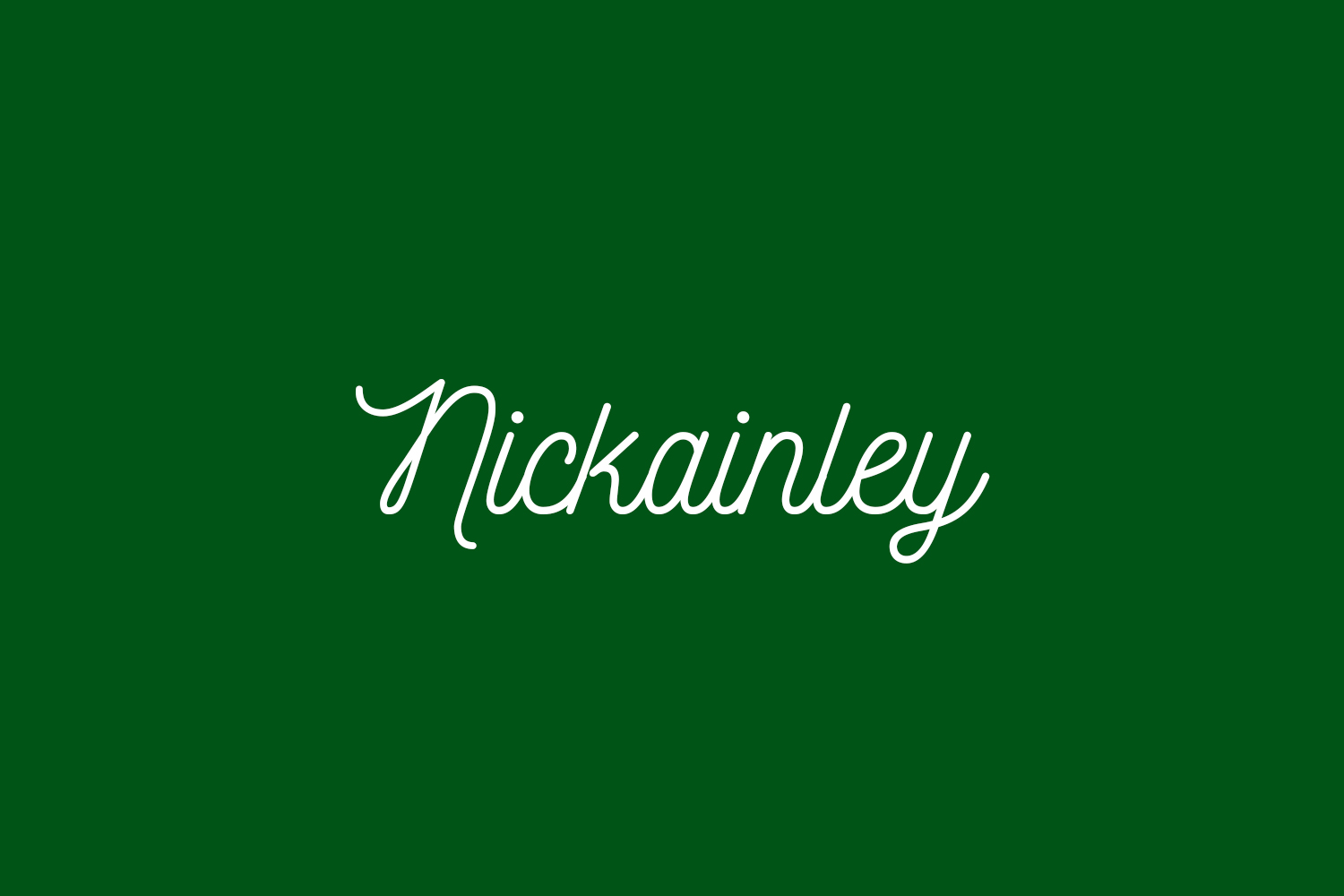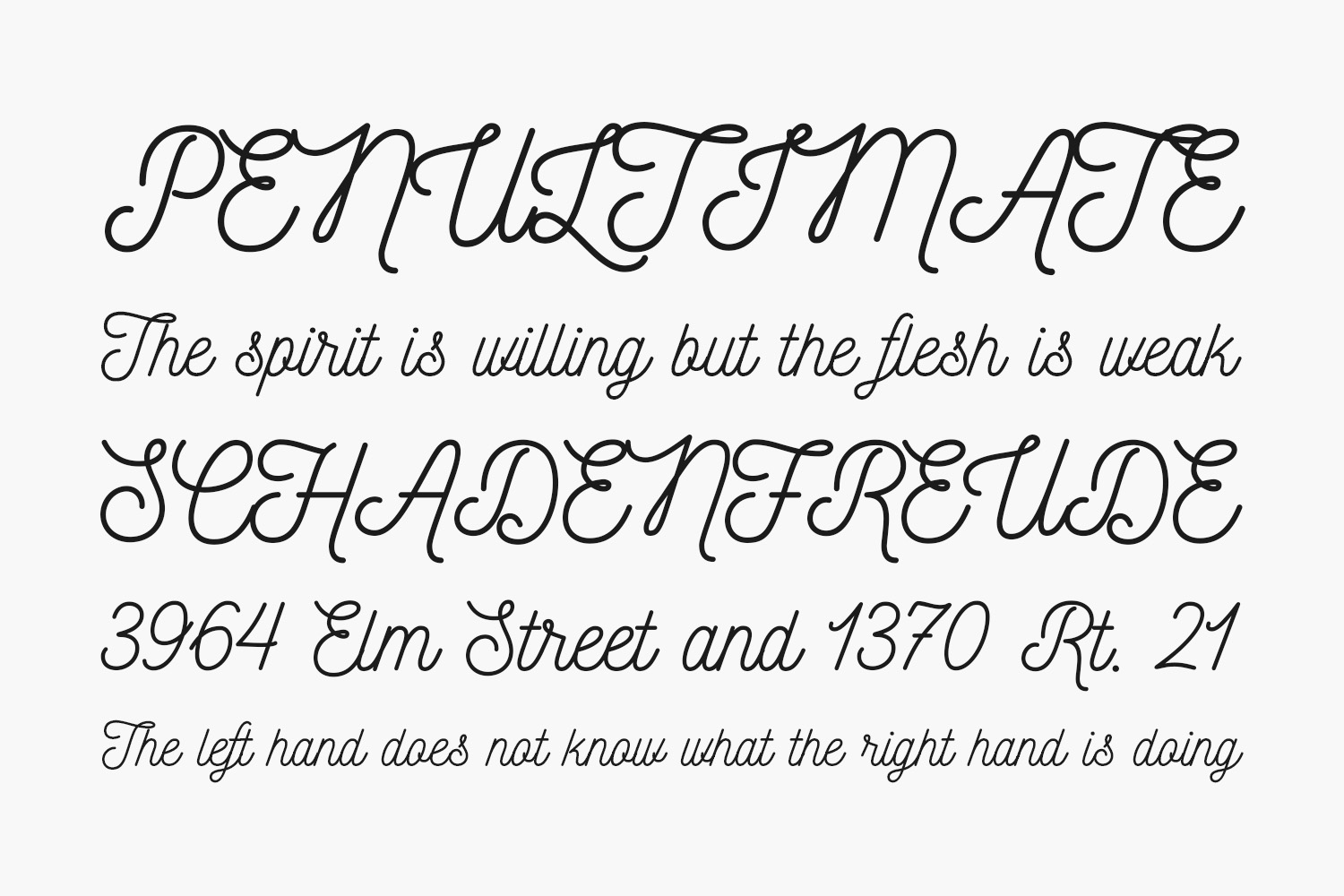
Nickainley Free Font is a monoline script handwriting font and can be used for various purposes such as logos, badges, wedding invitations, t-shirts, letterhead, signage, labels, news, posters, badges, etc.
Designed by Seniors Studio